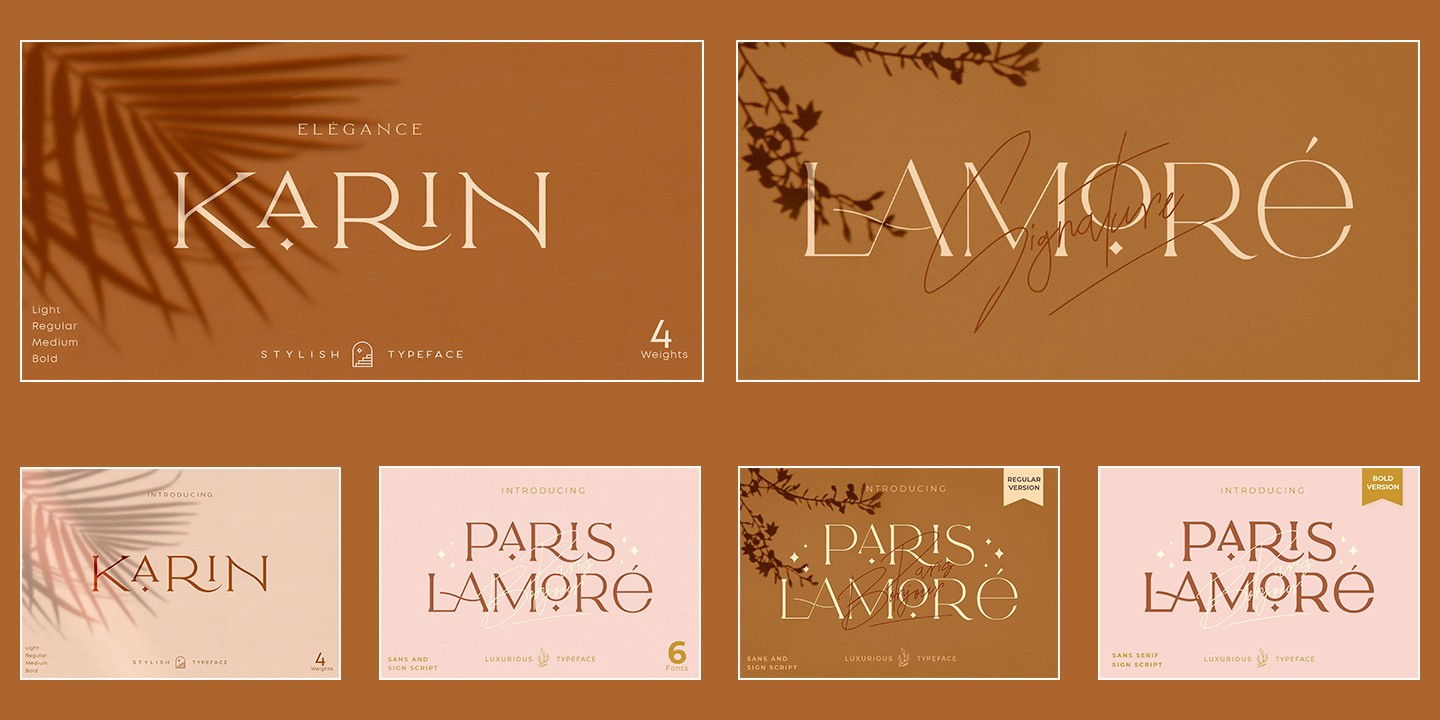
Elegance Karin Font
Elegance Karin Font is perfect for luxury fashion branding, high-end wedding invitations, sophisticated cosmetics packaging, exclusive jewelry catalogs, upscale spa marketing, premium lifestyle magazines, elegant boutique signage, and refined personal branding where grace and sophistication are essential.
What makes Elegance Karin Font so exciting is its exquisite ability to embody feminine grace and timeless sophistication through flowing letterforms that capture the essence of refined elegance while maintaining perfect readability. The graceful character design reflects the poise and beauty associated with classic femininity and luxury lifestyle brands.
The Elegance Karin Font family includes light, regular, medium, bold, and script variants, with decorative flourishes and elegant ornamental elements that provide designers with comprehensive tools for creating sophisticated luxury branding and premium lifestyle design systems.
This refined typeface represents the pinnacle of elegant typography design, combining classical beauty with contemporary luxury market requirements. The Elegance Karin Font Free Download offers premium brands access to typography that communicates exclusivity and refined taste.
The font's delicate character details and flowing connections create immediate associations with luxury fashion and sophisticated lifestyle choices. Each letterform has been meticulously crafted to evoke the artistry and attention to detail found in high-end fashion and luxury product development.
Elegance Karin Font transforms brand communications into compelling expressions of refined taste and sophisticated living. The typeface's graceful personality makes it ideal for luxury brands targeting discerning women who appreciate authentic elegance and premium quality.
From haute couture designers to luxury wellness brands, this font brings sophisticated femininity that resonates with affluent consumers seeking authentic luxury experiences. The versatile design maintains its elegant character across both traditional luxury applications and modern digital platforms.